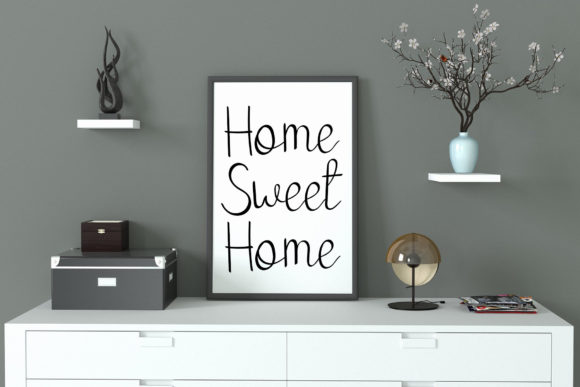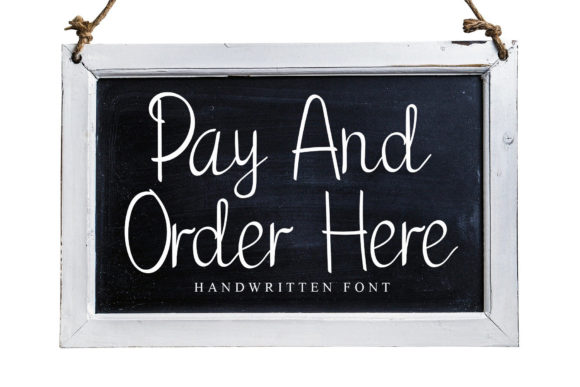
Buttermilk Font
db-ku.com - Script & Handwritten -- Buttermilk is a unique and elegant font. Looks great on wedding invitations, greeting cards, billboards, logos, business cards, and any other design that requires a handwritten touch. This font features a varied baseline, created with a natural, hand-made touch. So that it creates spectacular creations and will make your ideas look more real. This font is PUA encoded which means you can access all glyphs and swashes with ease!